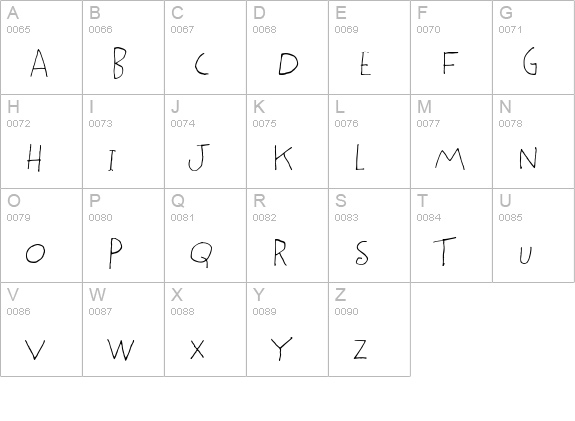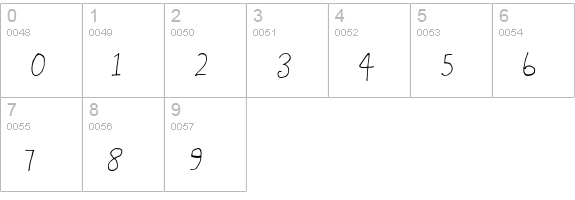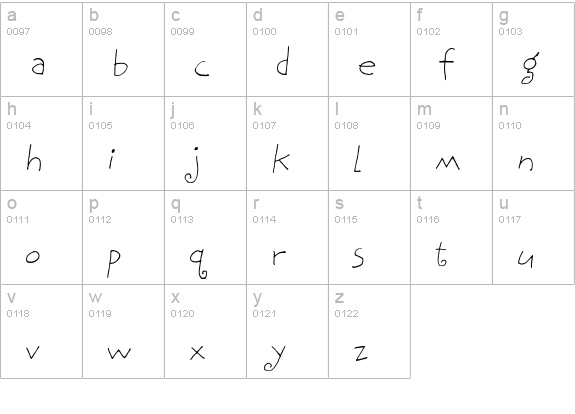
BethsCuteHmk Font Details
Introducing BethsCuteHmk font – a charming and delightful typeface that exudes a playful and whimsical vibe perfect for adding a touch of cuteness to your designs. With its rounded edges and quirky details, BethsCuteHmk font is sure to bring a smile to anyone who sees it. This unique font is ideal for a variety of projects, from children's books and greeting cards to social media graphics and branding materials. Its versatility makes it a must-have in any designer's toolkit. And the best part? BethsCuteHmk font is available for free download at FontsMarket.com. So go ahead and add this adorable font to your collection today and let your creativity shine!